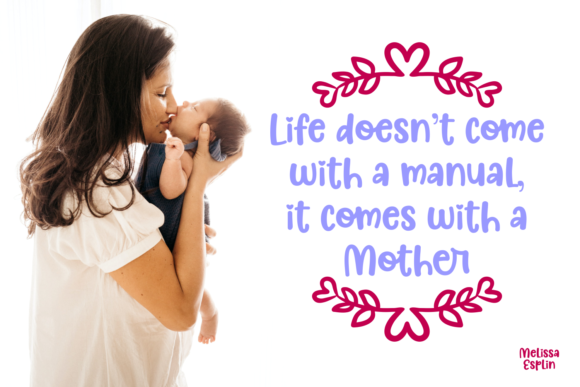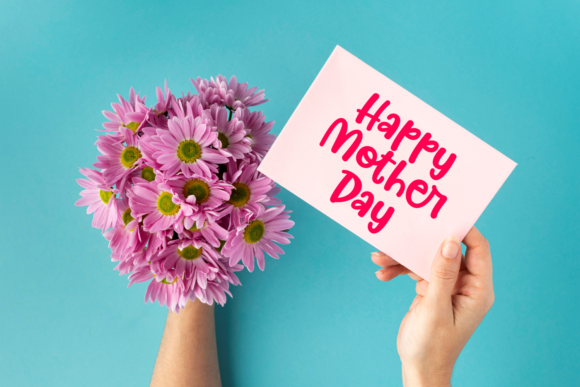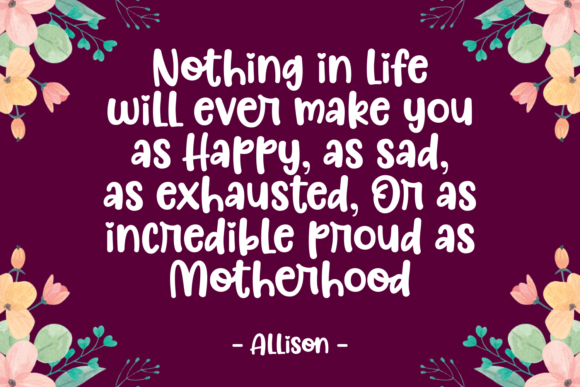
Introduction to Awesome Mother Font
As a designer, there’s nothing quite like the thrill of staring at a blank canvas, waiting for inspiration to strike. It’s that moment when everything comes together, and your creative project starts to take shape. For many of us, it’s the perfect blend of imagination, skill, and the right tools. And that’s where Awesome Mother Font comes in – a bold and playful script font with cute doodle elements that can elevate your designs to the next level.
Whether you’re working on a high-quality logo, creating a social media graphic, or crafting a beautiful invitation, Awesome Mother Font is the perfect design resource to help you stand out from the crowd. With its transparent background and free download option, you can experiment with different styles and compositions without any limitations. As a valuable addition to your design arsenal, Awesome Mother Font is sure to inspire you to create something truly original and outstanding.
So, what makes Awesome Mother Font so special? In this article, we’ll delve into the world of this amazing font and explore its unique features, benefits, and uses. From its cute doodle elements to its high-quality design, we’ll show you why Awesome Mother Font is a must-have for any designer looking to add some personality to their work.
Key Features of Awesome Mother Font
- High-quality vector design with a transparent background, ideal for creative projects and design resources.
- Unique, hand-drawn style with a playful and whimsical feel, perfect for adding a touch of personality to designs.
- Extremely versatile, suitable for use in a wide range of creative projects, from digital art to print materials.
- Easy to edit and customize, making it an excellent choice for designers who want to add a personal touch to their work.
Honest Review: Awesome Mother Font
As a designer, I’m always on the lookout for high-quality design resources to elevate my creative projects. Recently, I stumbled upon Awesome Mother Font, and I’m excited to share my honest review.
What works well: ✨ Awesome Mother Font has a sleek and modern design aesthetic, perfect for contemporary branding projects. The font is highly versatile and can be easily customized to fit various design styles. I also appreciate the transparent background, which makes it easy to overlay on different colors and textures.
Here are some key features to consider:
- High-quality design with a modern aesthetic
- Transparent background for easy overlay
Overall, I think Awesome Mother Font is a solid design resource, but its limitations on free downloads may deter some designers. Still, its high-quality design and versatility make it a great addition to any creative project.
For optimal results, use Awesome Mother Font in conjunction with a transparent background to create a clean and modern design. Experiment with different font sizes and colors to find the perfect combination for your design needs.
Awesome Mother Font is ideal for use in a variety of creative projects, including graphic design, digital art, and typography. It’s also a great choice for personal projects, such as creating a custom logo or branding materials.